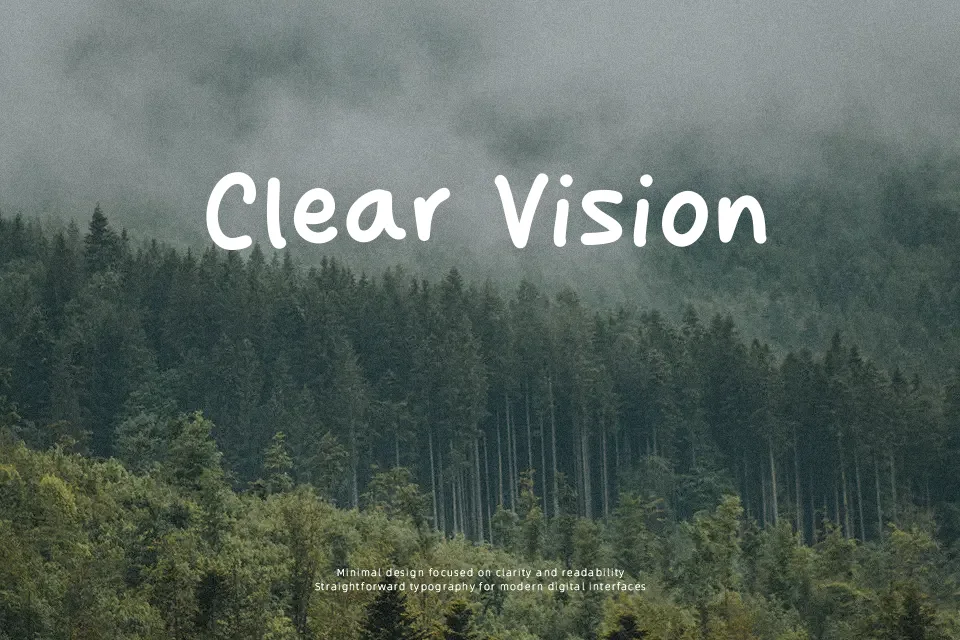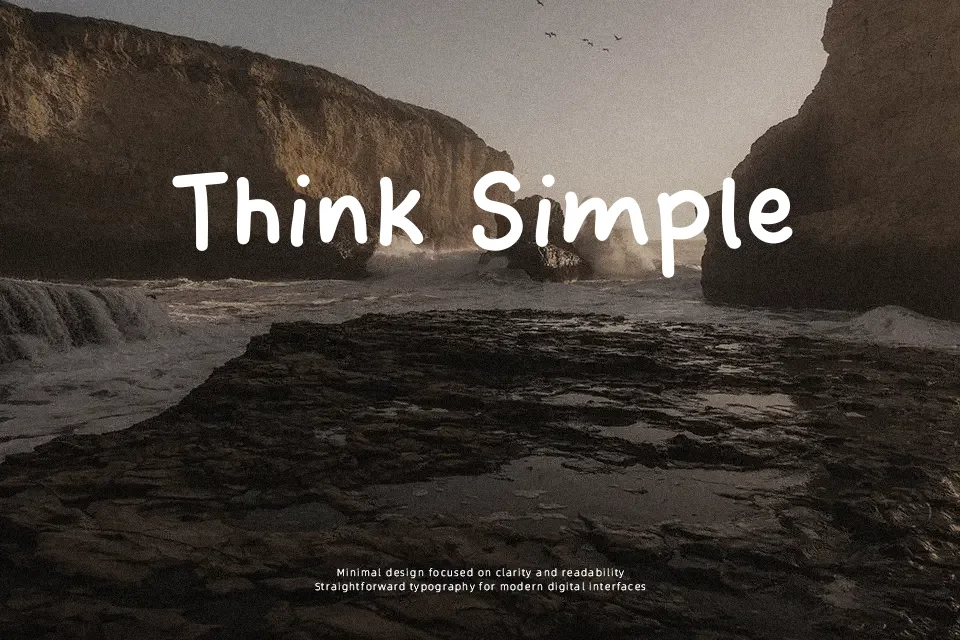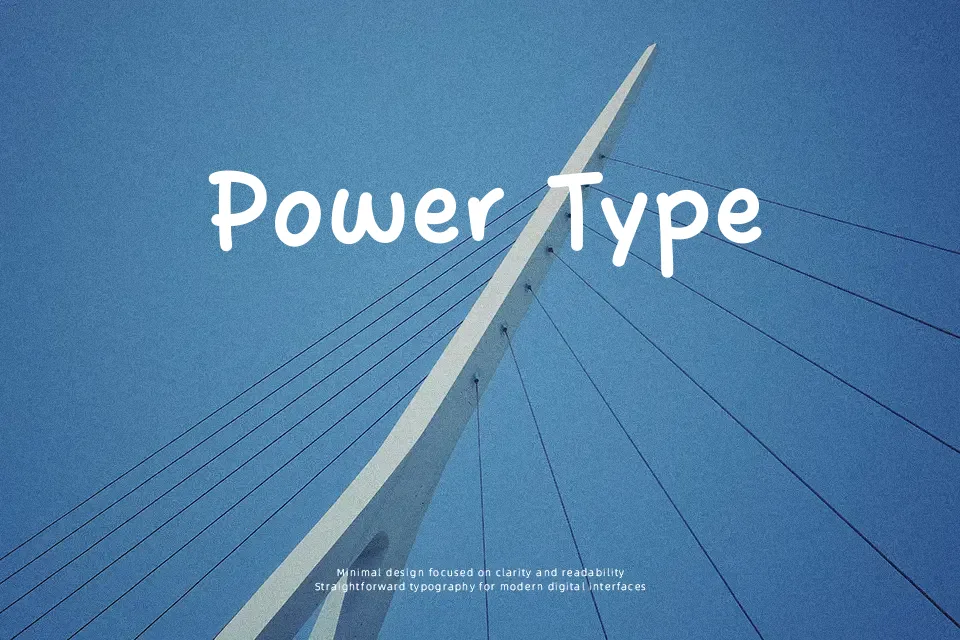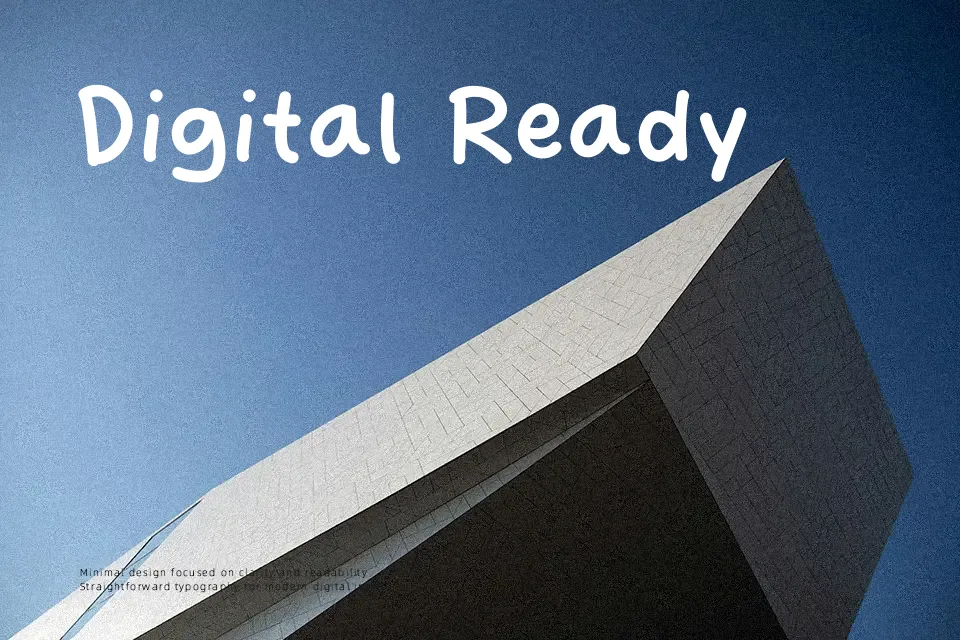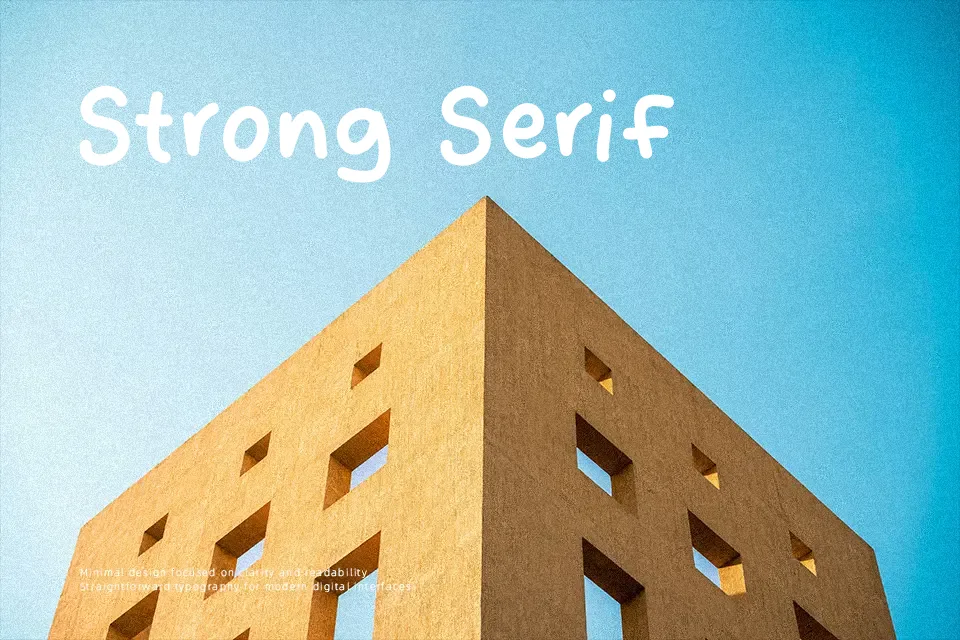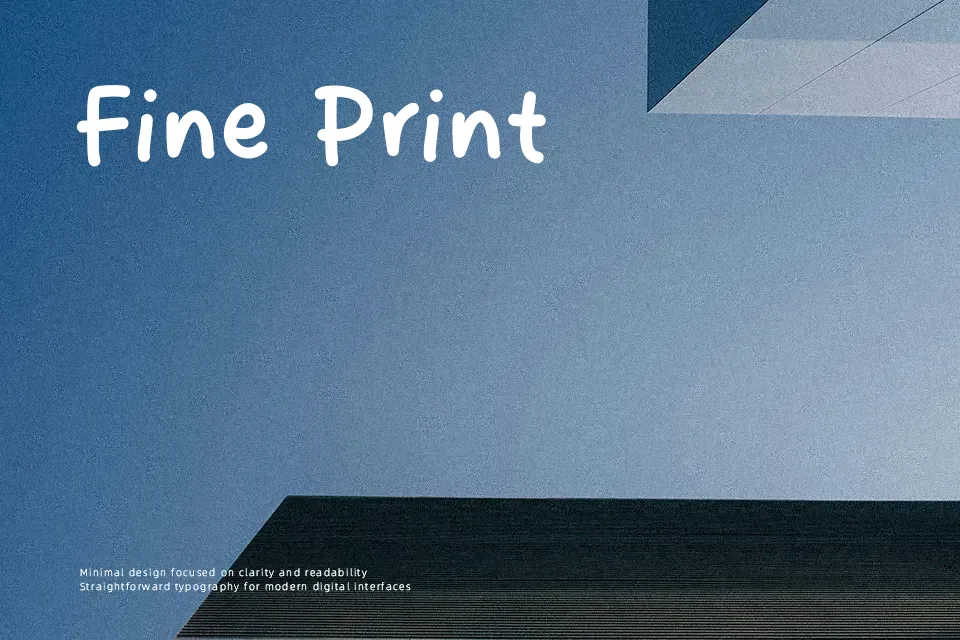
Ora Urus Font
Designed by Khurasan
Ora Urus Font uses thick, hand-drawn letterforms with rounded edges, irregular curves, and a loose handwritten rhythm. The proportions feel broad and approachable, while the slightly uneven strokes give headings a casual, playful presence. Spacing appears open enough to keep short words distinct at display sizes, and the uppercase and lowercase characters maintain a consistent informal tone. It works well for children’s graphics, product labels, and friendly promotional headlines. The bold shapes hold attention in larger text, but their soft, decorative construction is less comfortable for extended reading or very small copy.
Best For: children’s event posters,casual product packaging,playful logo designs,social media headlines
Not Ideal For: long paragraph text,corporate reports,small interface labels,technical manuals
Perfect for headline, logo, and packaging, with a bold and comic style.